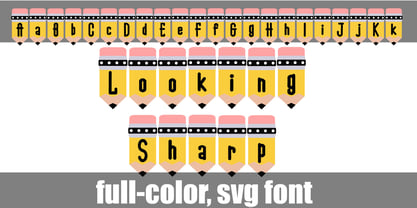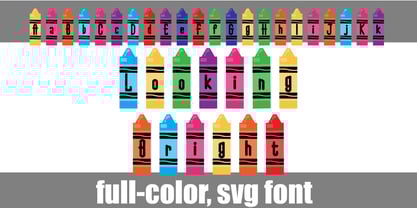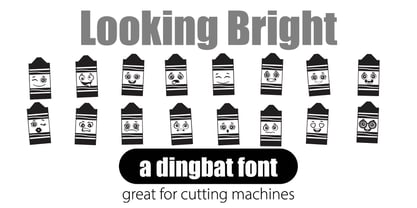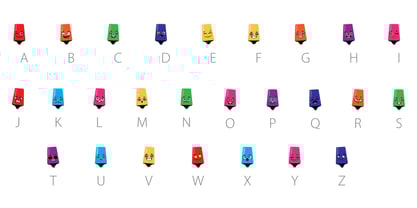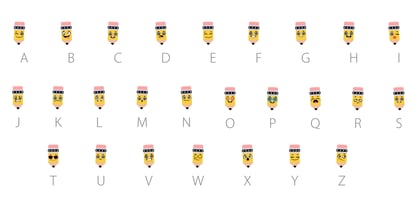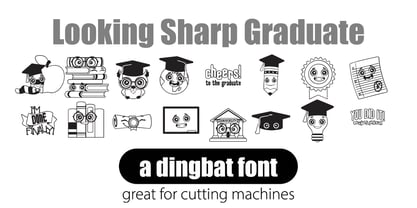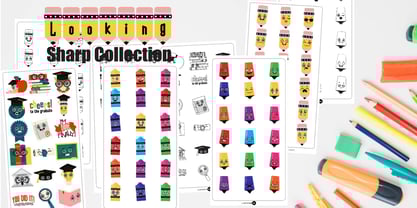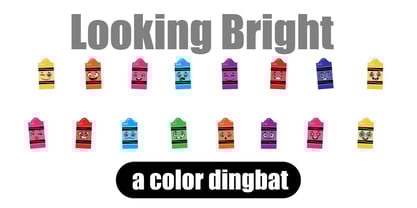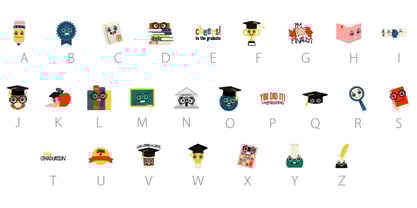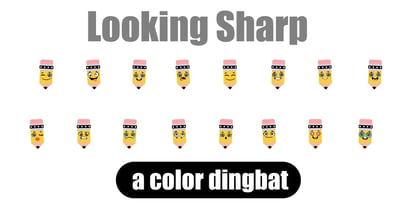
Looking
by Illustration Ink
The Looking Font Family was designed by Illustration Ink and published by Illustration Ink. Looking contains 11 styles and family package options.
Looking Sharp, Remarkable and Bright! This font bundle features the kawaii-style pencils, crayons, and markers. This bundle has 3 full-color fonts, with an alt case of additional colors of each letter that you can access through your system or glyph map, 4 full-color dingbats, and 4 regular dingbats.
Full-color SVG fonts are the perfect way to add a touch of personality to your designs. With a full range of colors and styles to choose from, you can create anything from simple text logos to complex illustrations. Plus, SVG fonts are vector-based, so they can be scaled to any size without losing quality.